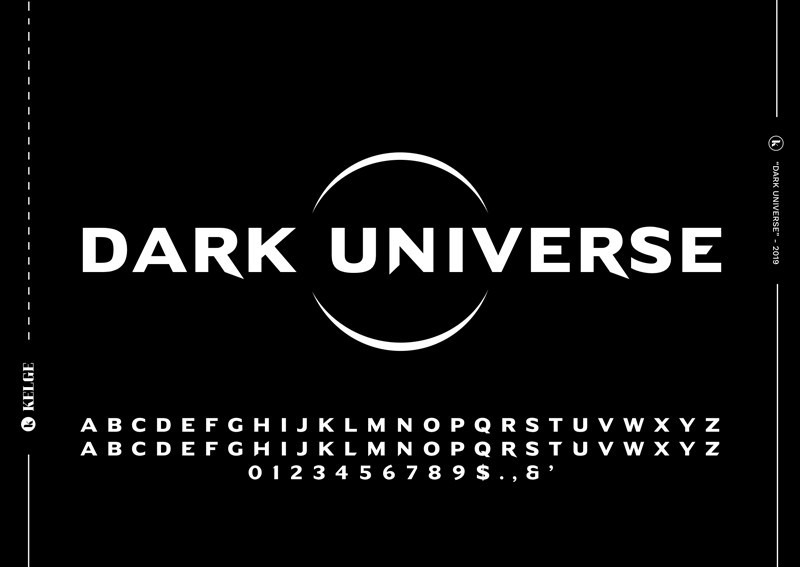
Dark Universe Free Font
I am very happy and happy to introduce is a sans serif display font to you, It’s comes with an elegant and sturdy form, a modern touch feels strong in this font. Introducing Dark Universe Font. This is sans serif font that designed to be functional. And this is really cool when combined with posters, social media, headlines, titles, large format prints, quotes, short texts – and all the ideas you have. It’s the right answer to fulfill all your design needs, really this font is very fun.